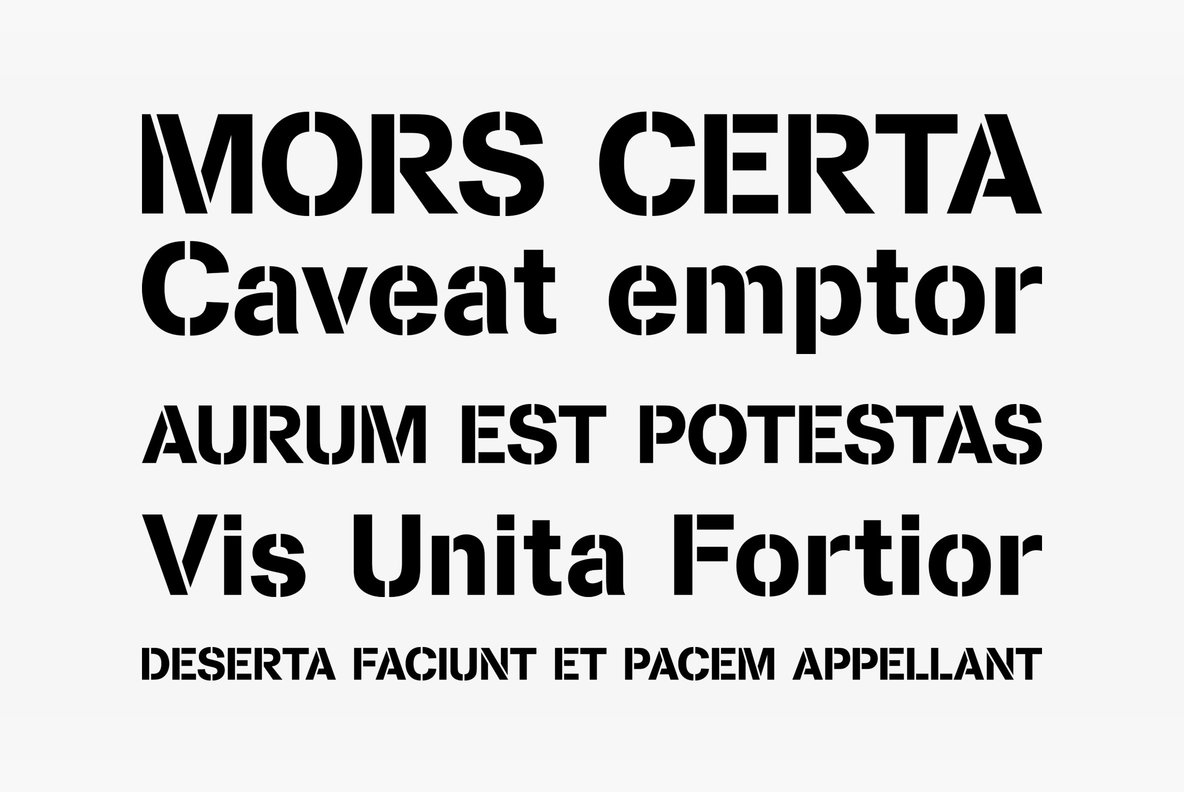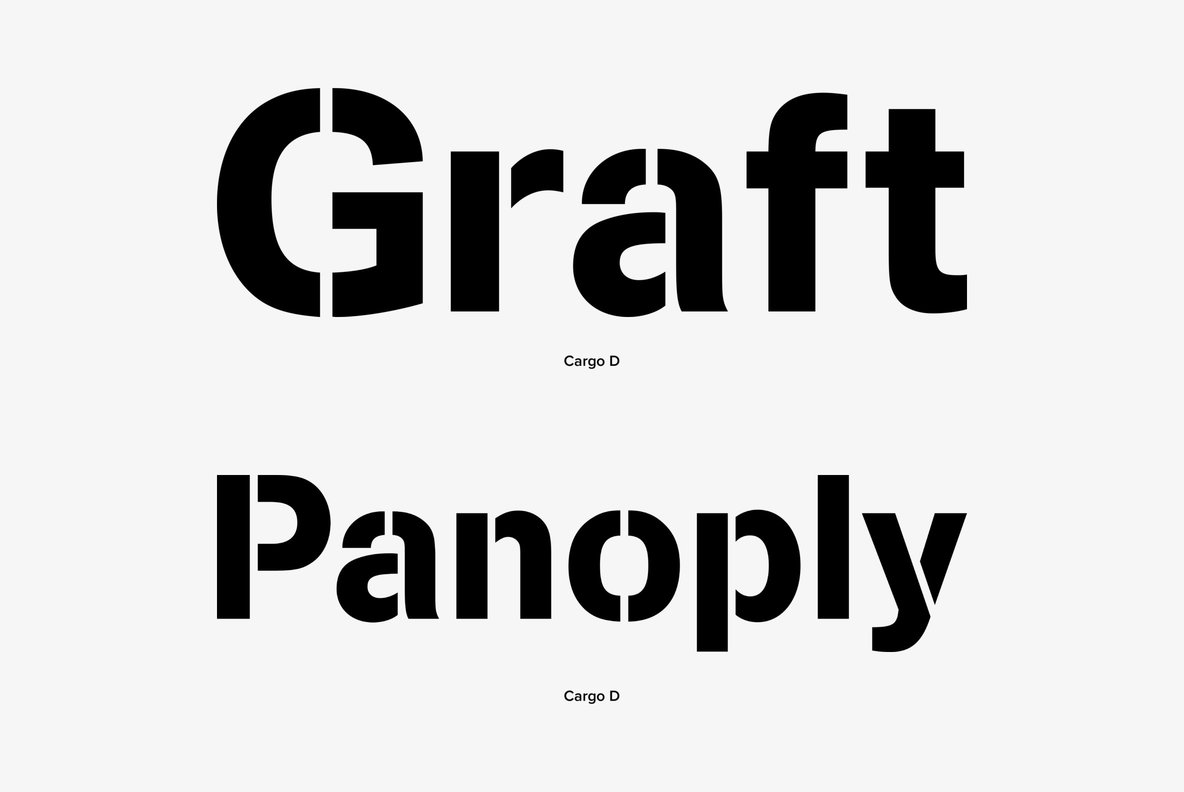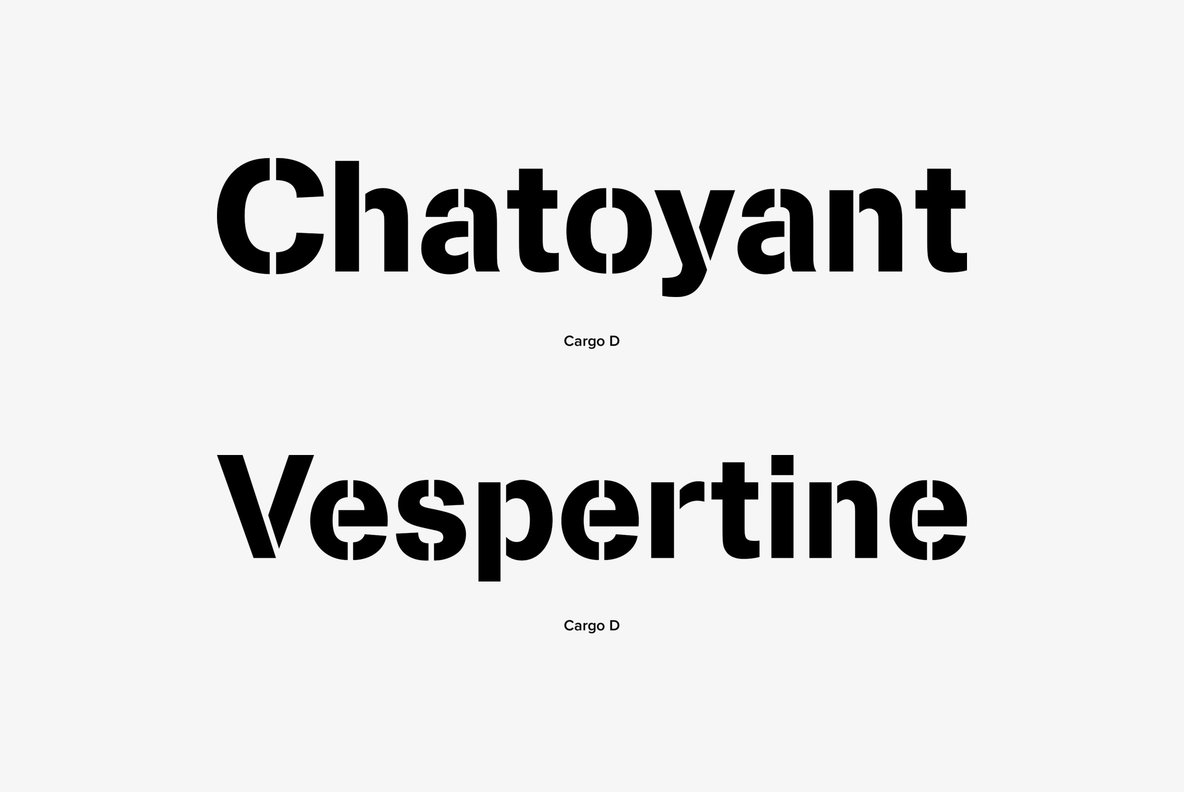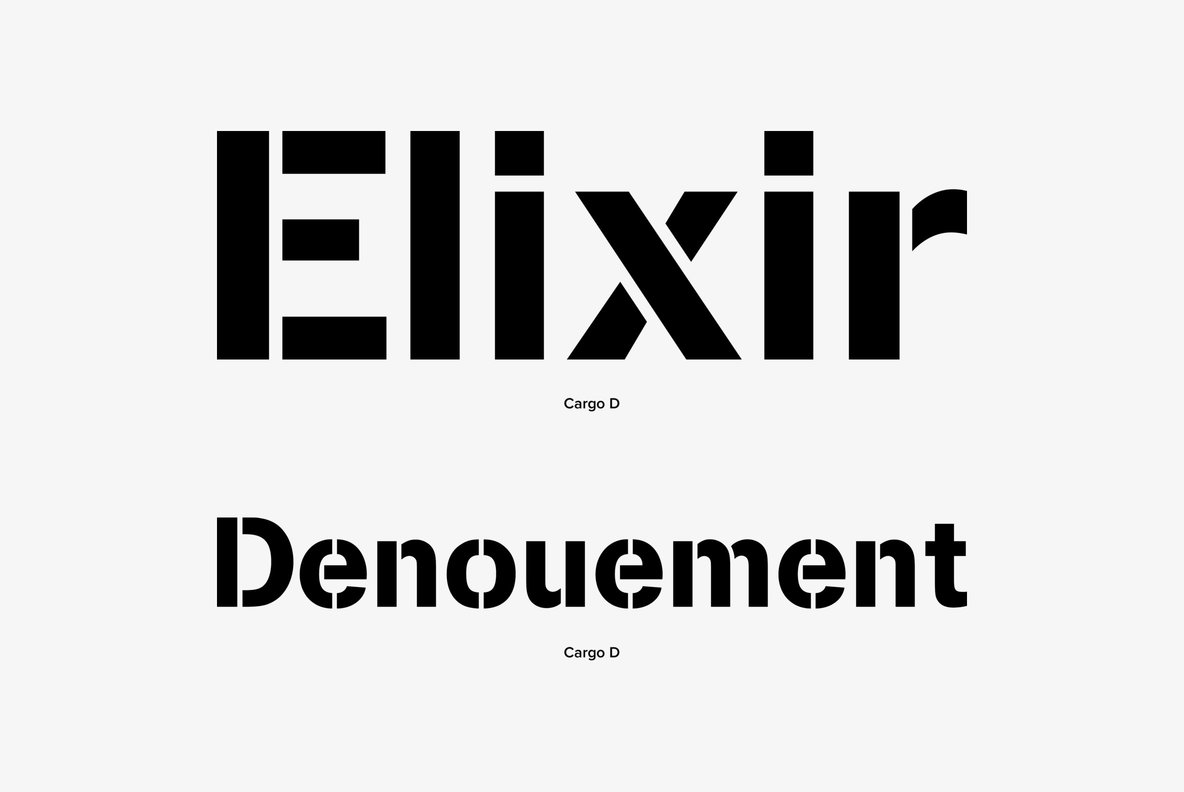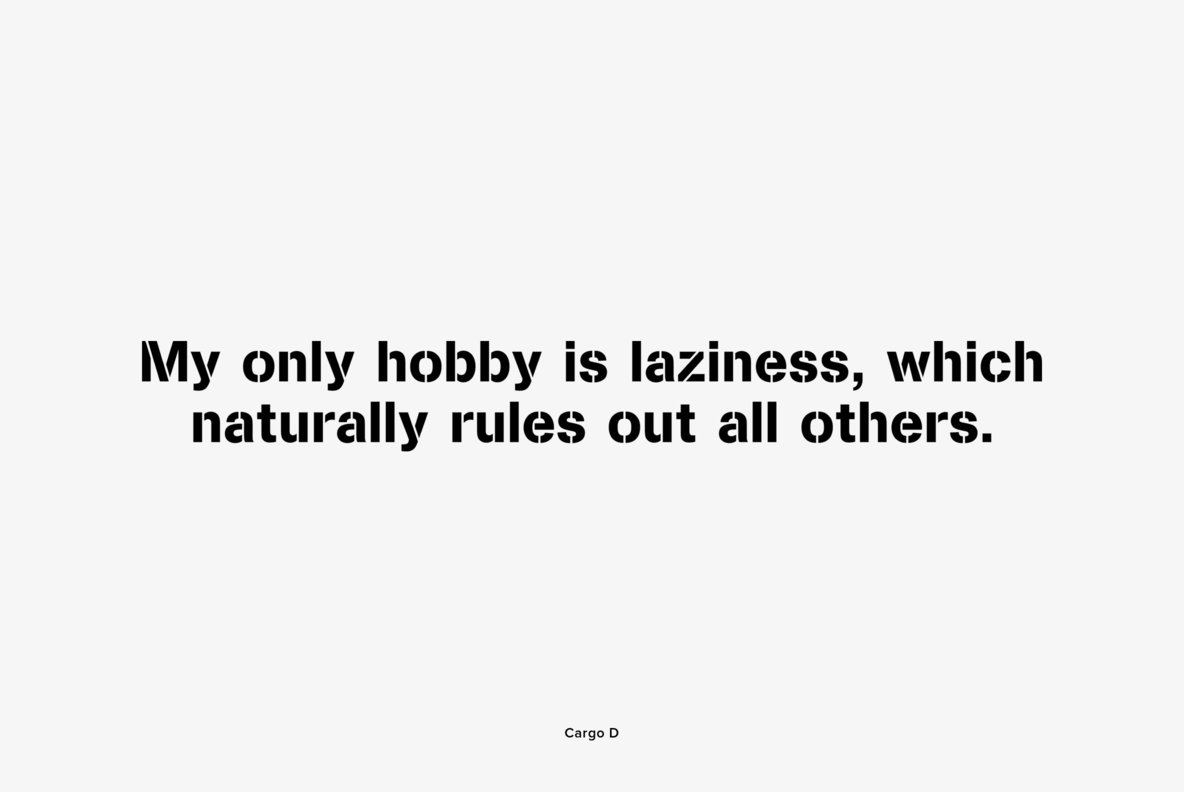
Originally designed and published by Photo-Lettering, Cargo is a stencil font design, released by URW. Cargo contains language support for West, East, Turkish, Baltic, and Romanian.